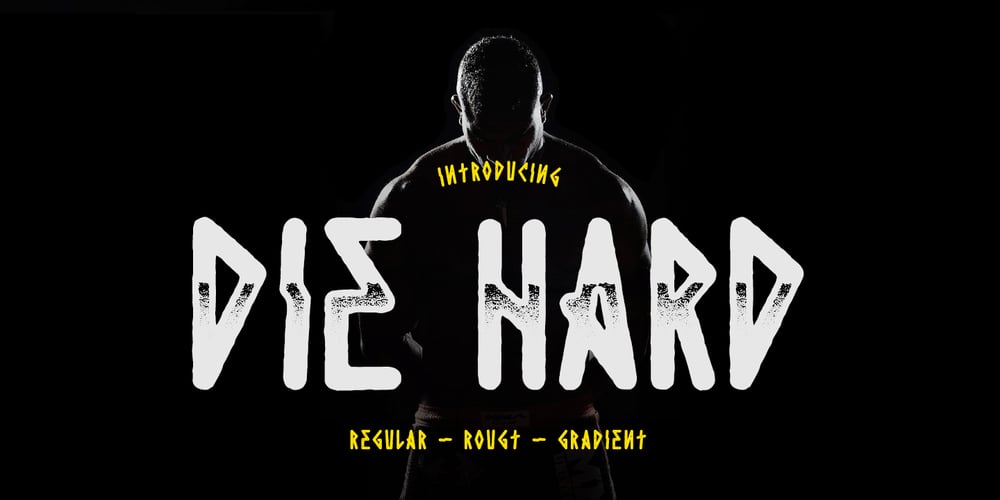
Die Hard Font Family was designed by madededuk and published by madeDeduk. Die Hard contains 3 styles and family package options. Hello I’m really excited to introduce Die Hard with vintage and old school style font with three alternative! Die Hard perfect for poster design, book covers, merchandise, fashion campaigns, newsletters, branding, advertising, magazines, greeting cards, album covers, and quote designs and more.Feature Uppercase lowercase Number & Symbol International Glyphs If you need anything else just shoot me on email at: dedukvic@gmail.comHope you enjoy it.